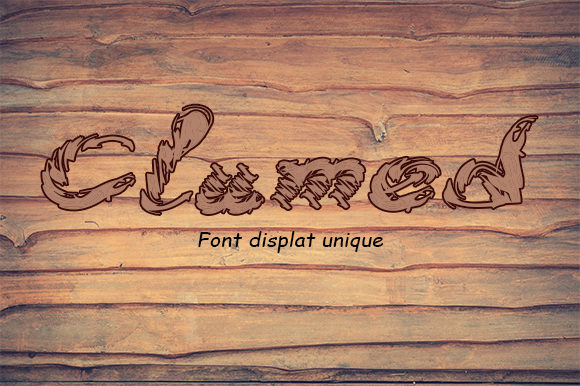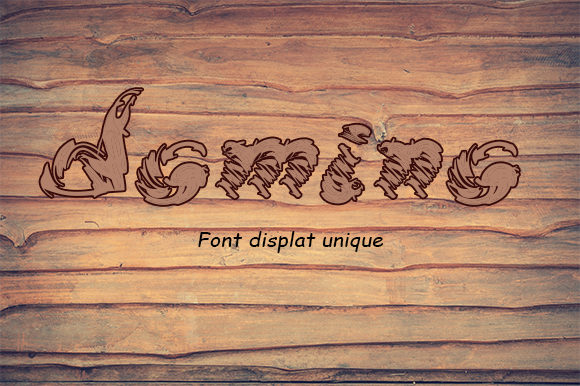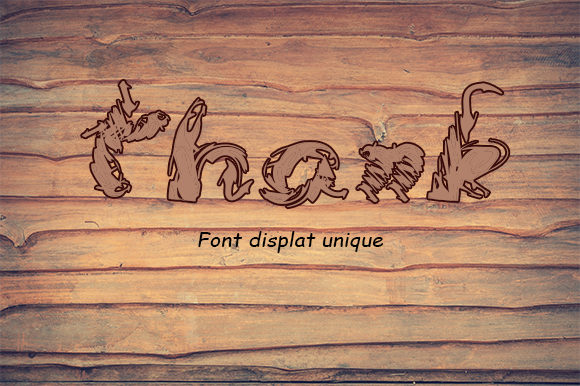
HomePersonal Use FreeClumed Personal Use Free Clumed FacebookTwitterPinterestWhatsApp 1 of 3 About Clumed Font Clumed is an interesting display font. Use this font for any crafting project that requires a personalized look! DOWNLOAD NOW People also explored Mouselow Font Make a Wish Font Almatter Hustle Font Yestermoon Font Flower Bay Font Gempi Font Amalia Font Morning Singing Font Burrata Font 178 0 TagsClumedClumed Font Previous articleYumailNext articleMariyam LEAVE A REPLY Cancel reply Comment: Please enter your comment! Name:* Please enter your name here Email:* You have entered an incorrect email address! Please enter your email address here Website: Save my name, email, and website in this browser for the next time I comment. Personal Use Free Caramel Latte Personal Use Free Read more about this font Haris Wood Personal Use Free Read more about this font Lixdu Personal Use Free Read more about this font Free Personal Use Free Read more about this font BLOG Elegant Wedding Invitation Fonts – Handwritten & Script Fonts Elegant Wedding Invitation Fonts Your wedding day is one of the most important moments of your life, and every detail matters—including your invitation design. Our... Where to Buy American Fonts Online in 2024 The 10 Best Handwriting Fonts to Add Personality to Your Designs Best Fonts for YouTube Videos: Make Your Thumbnails Stand Out